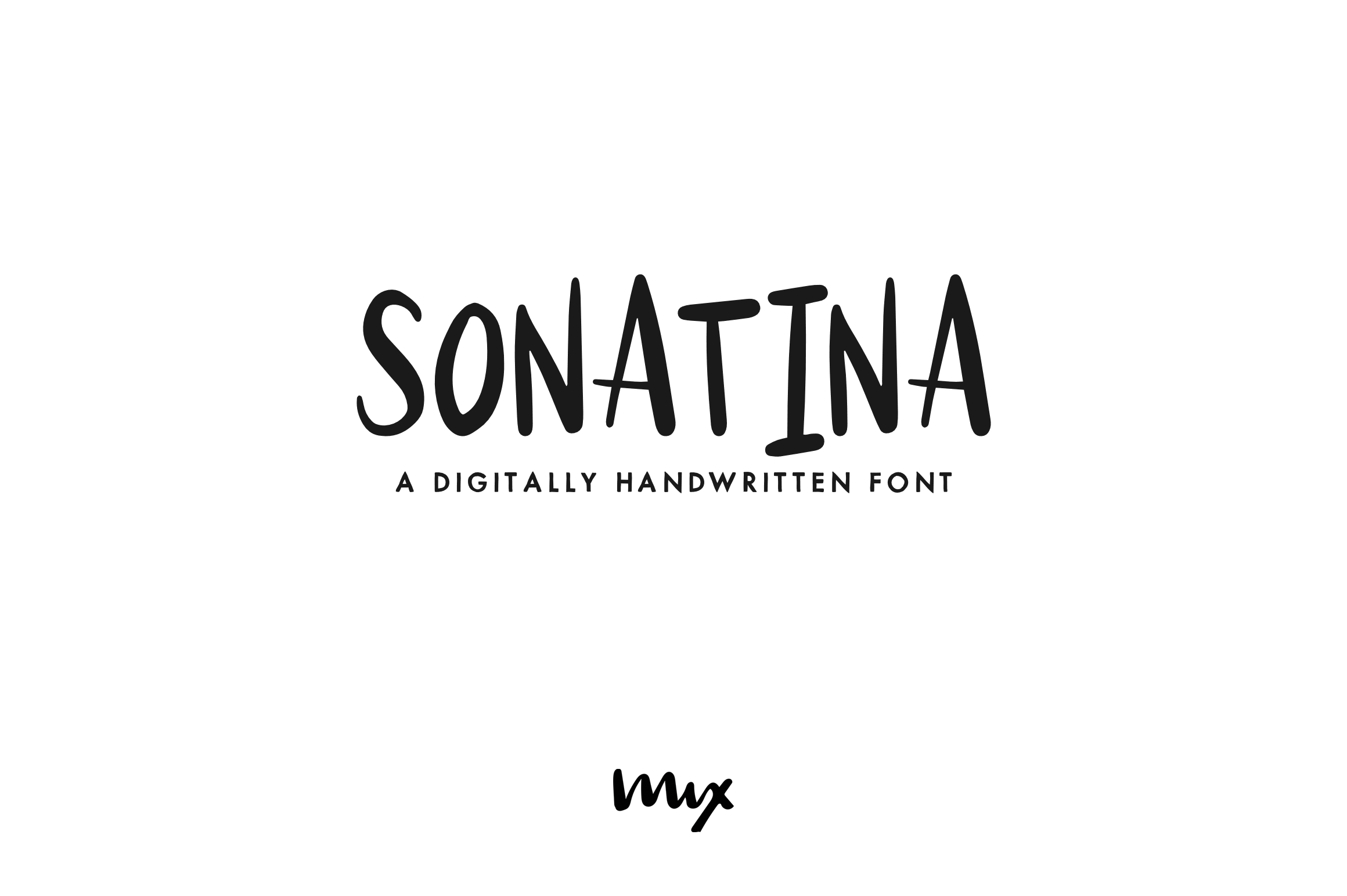
Sonatina — A Handwritten Font
MIX SONATINA is a handwritten typeface that will have you humming its sweet melody all day long. Perfect for all your handmade and DIY projects, this font exudes personality and charm. Created on an iPad using Procreate and then digitized with care, MIX SONATINA is ready to bring a touch of handmade goodness to any project. From invitations and branding materials to social media posts, this font is sure to make a statement. So why wait? Let MIX SONATINA's playful yet refined style elevate your designs to new heights.